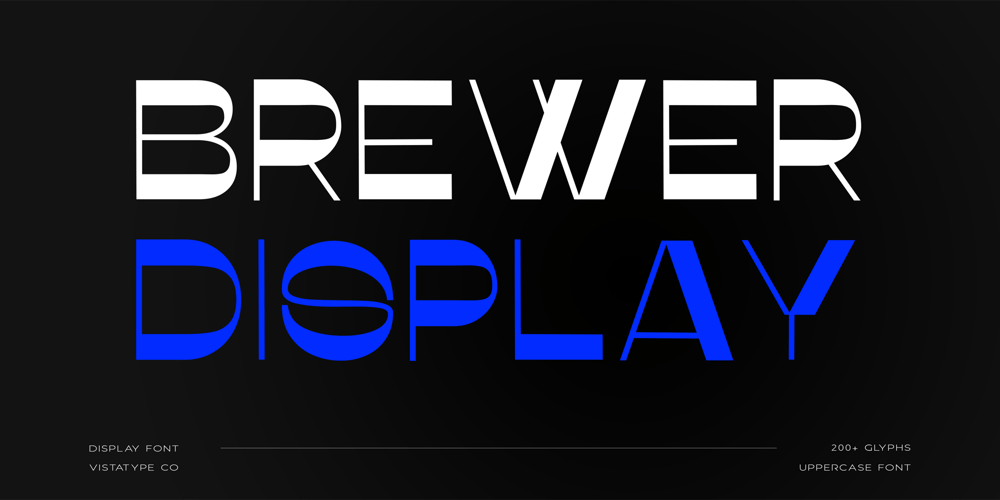
Brewer Display Font Family was designed by Ancy George and published by VistaType. Brewer Display contains 1 styles and family package options. Introducing our latest display typeface called Brewer Display. A classic and elegant looking Display font with a Modern feel, inspired by the Modern logos. Brewer is perfectly made for logos, invitations, labels, Symbols, magazines, books, greeting/wedding cards, packaging, fashion, makeup, stationery, novels, or any advertising purposes.Characteristics: Uppercase Font Numbers and Punctuation marks Basic / Western-European / Central-European / South-Eastern European Language Support Free Updates & Addons We hope you enjoy it – please do let us know what you think, comments & likes are always hugely welcomed and appreciated. More importantly, please don’t hesitate to drop me a message if you have any issues or queries.